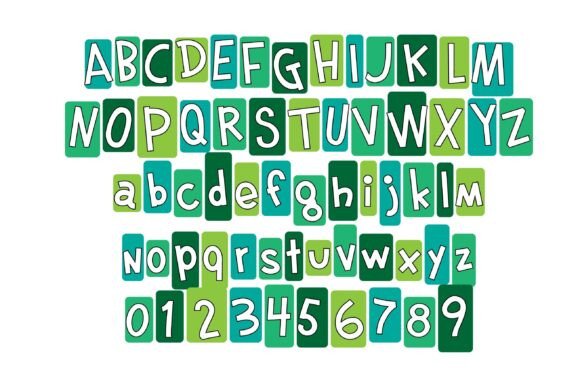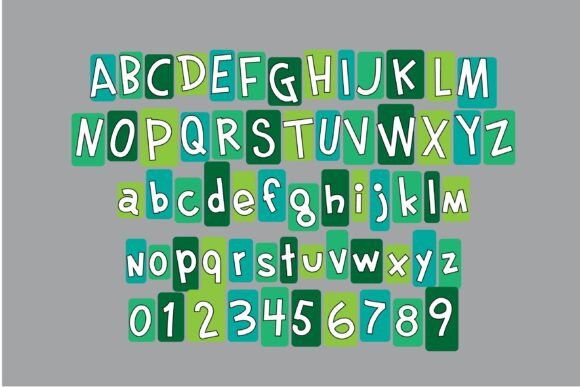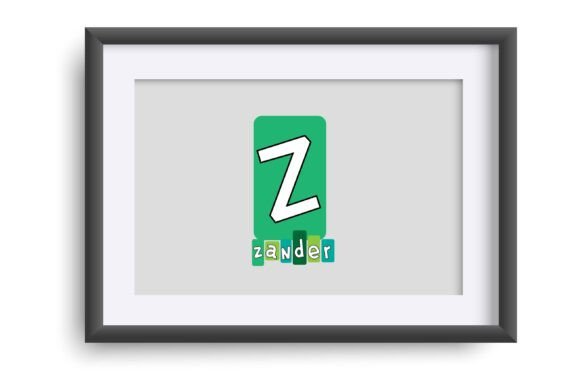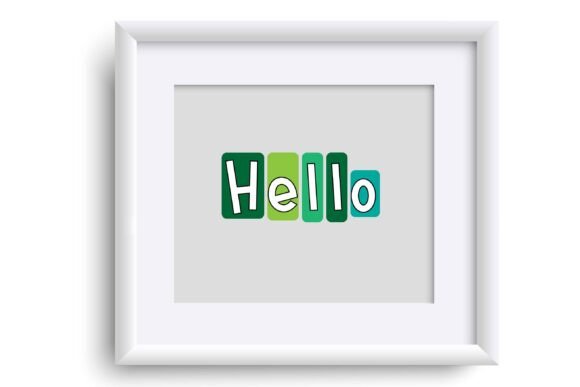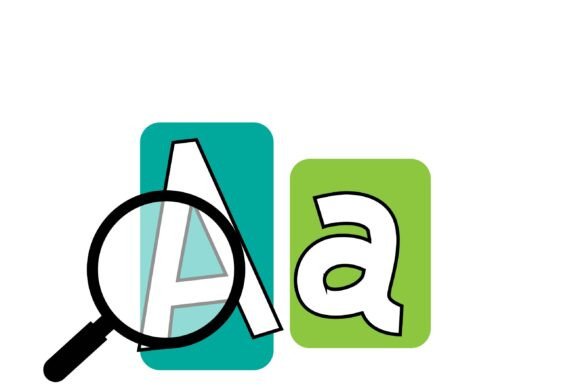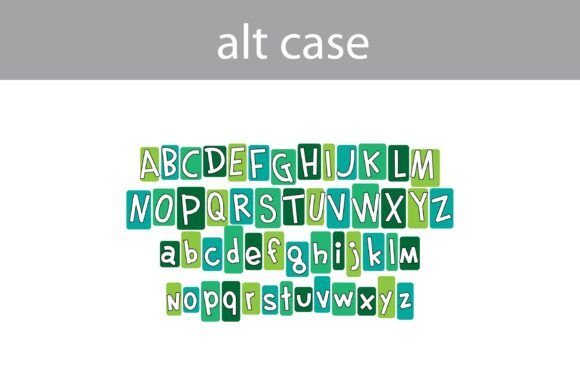
Introduction to Leprechaun Grudge Font
This full-color font features a child-like font on blocks of green.
There is an alt version you can access through your systemโs character map that contains additional colors of all the letters This font works best for titles, displays, posters and more.
Key Features of Leprechaun Grudge Font
Why Choose Leprechaun Grudge Font?
Leprechaun Grudge Font offers exceptional quality and versatility, making it a valuable addition to your design toolkit. Whether you’re creating for personal projects or commercial use, Leprechaun Grudge Font delivers professional results.